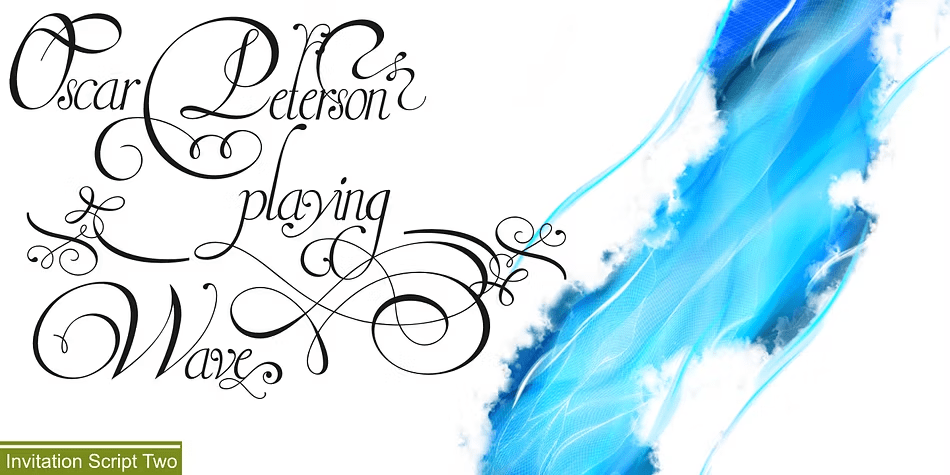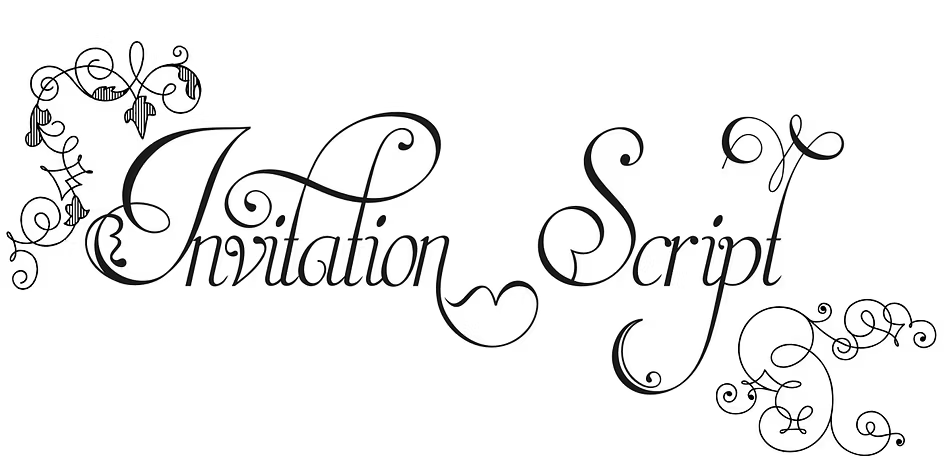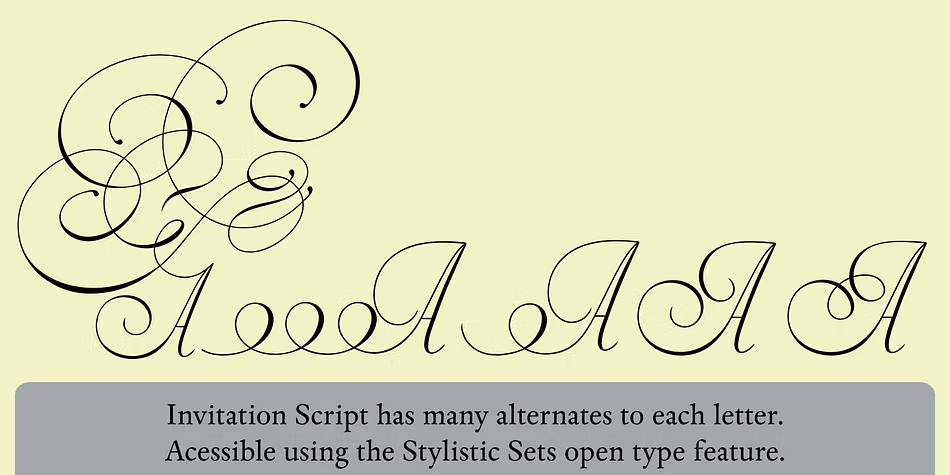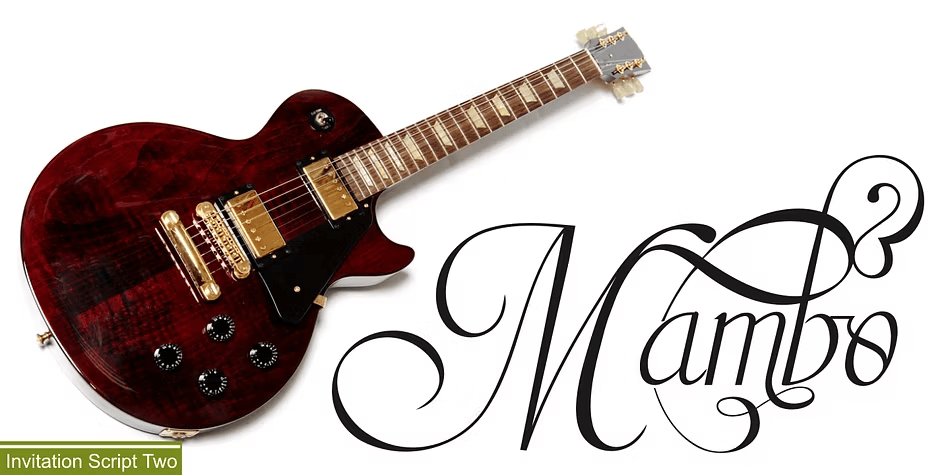
Invitation Script
About Invitation Script
Iza W and Intellecta Design are proud to announce Invitation Script, a modern and clean revival of the classic work of the Portuguese master penman Manuel de Andrade de Figueiredo, whose work can be seen in “Nova Escola para aprender a ler, escrever,…